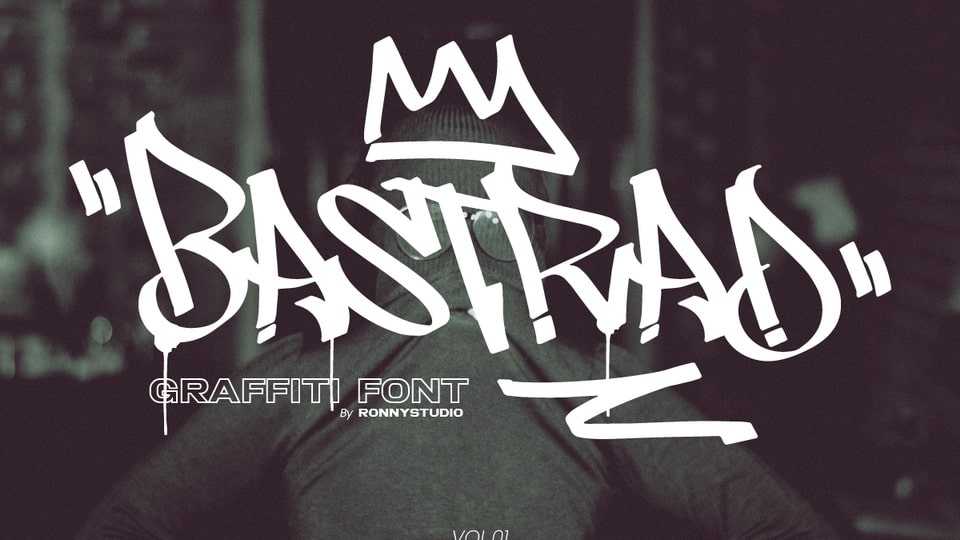
Download Bastrad vol.1 font, a hand lettered typeface inspired by the realistic calligraphy marking style in many big cities. Bastrad vol.1 is bolder and easier to read, perfect for your “street art” design style.